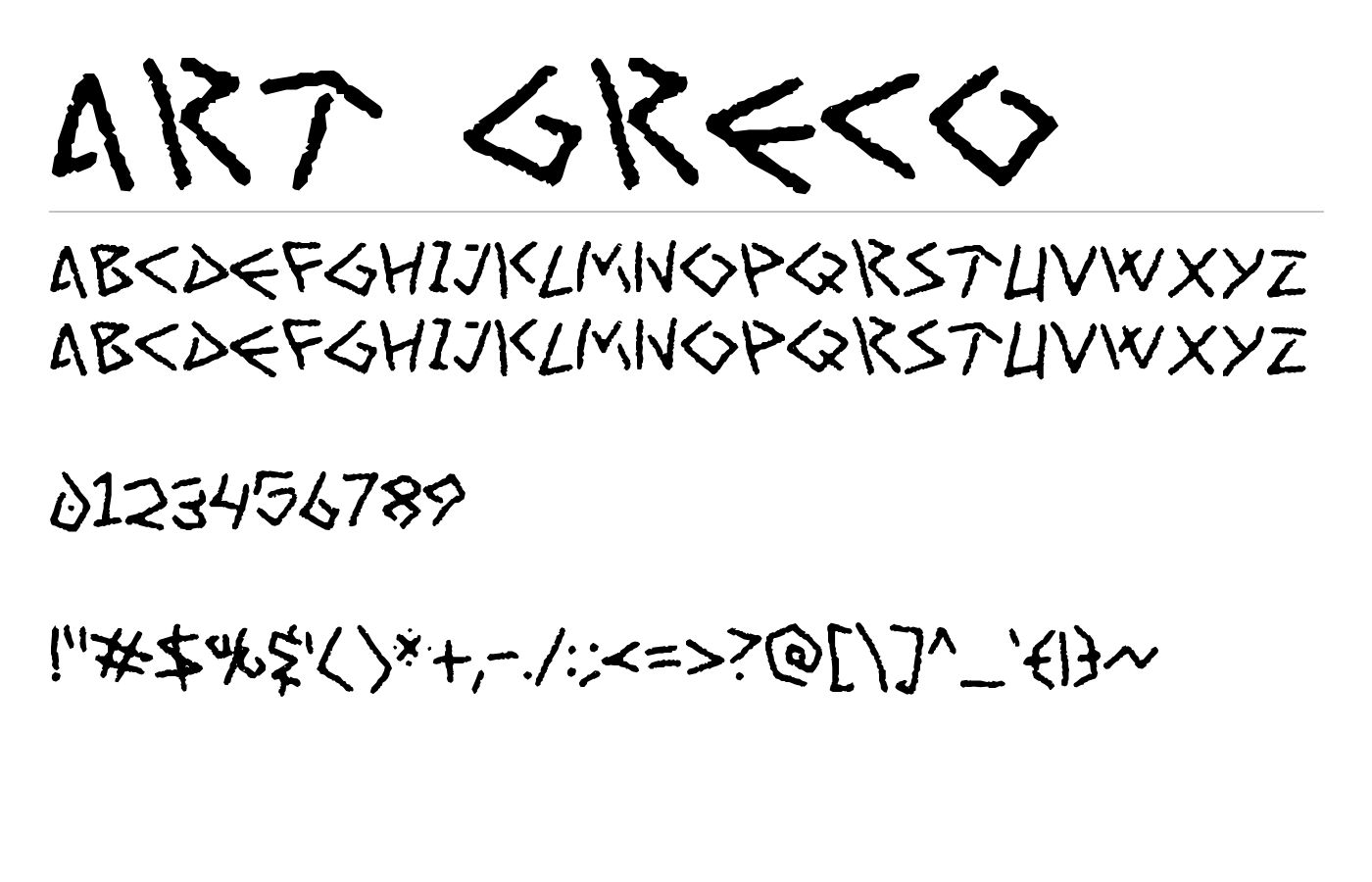
Art Greco is a distinctive, hand-drawn sans serif font with an uneven, textured style reminiscent of ancient inscriptions or tribal markings. Its irregular strokes and sharp angles give it a raw, artistic feel, making it ideal for creative projects that seek a bold, primal, and unique look, such as logos, posters, or thematic graphic designs. This font works well where originality and an expressive, handcrafted vibe are desired to capture attention and convey authenticity.
Art Greco Font
About Art Greco Font